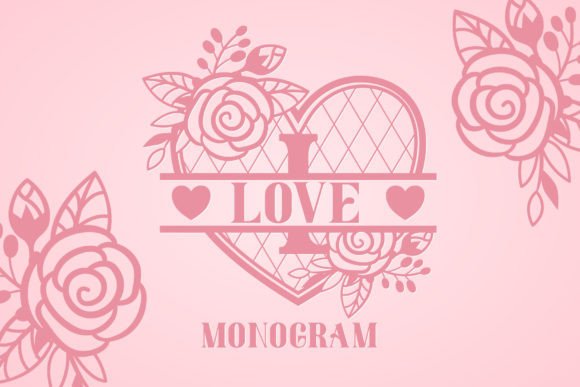
Looking for the perfect font to elevate your brand's image? Look no further than Love Monogram Font, the best font for brand names! Created by Fox7, this decorative font family is sure to capture your heart with its authentic feel and stunning design.
Love Monogram is a heart and flower monogram font that adds a touch of elegance to any project. Use it to create gorgeous invitations, beautiful stationary art, eye-catching social media posts, and cute greeting cards. With Love Monogram, your creativity knows no bounds!
This font's unique and captivating design will make your brand stand out from the competition. It is perfect for businesses looking to add a personal touch to their brand. Whether you are a wedding planner or a boutique owner, Love Monogram is the perfect choice for you.